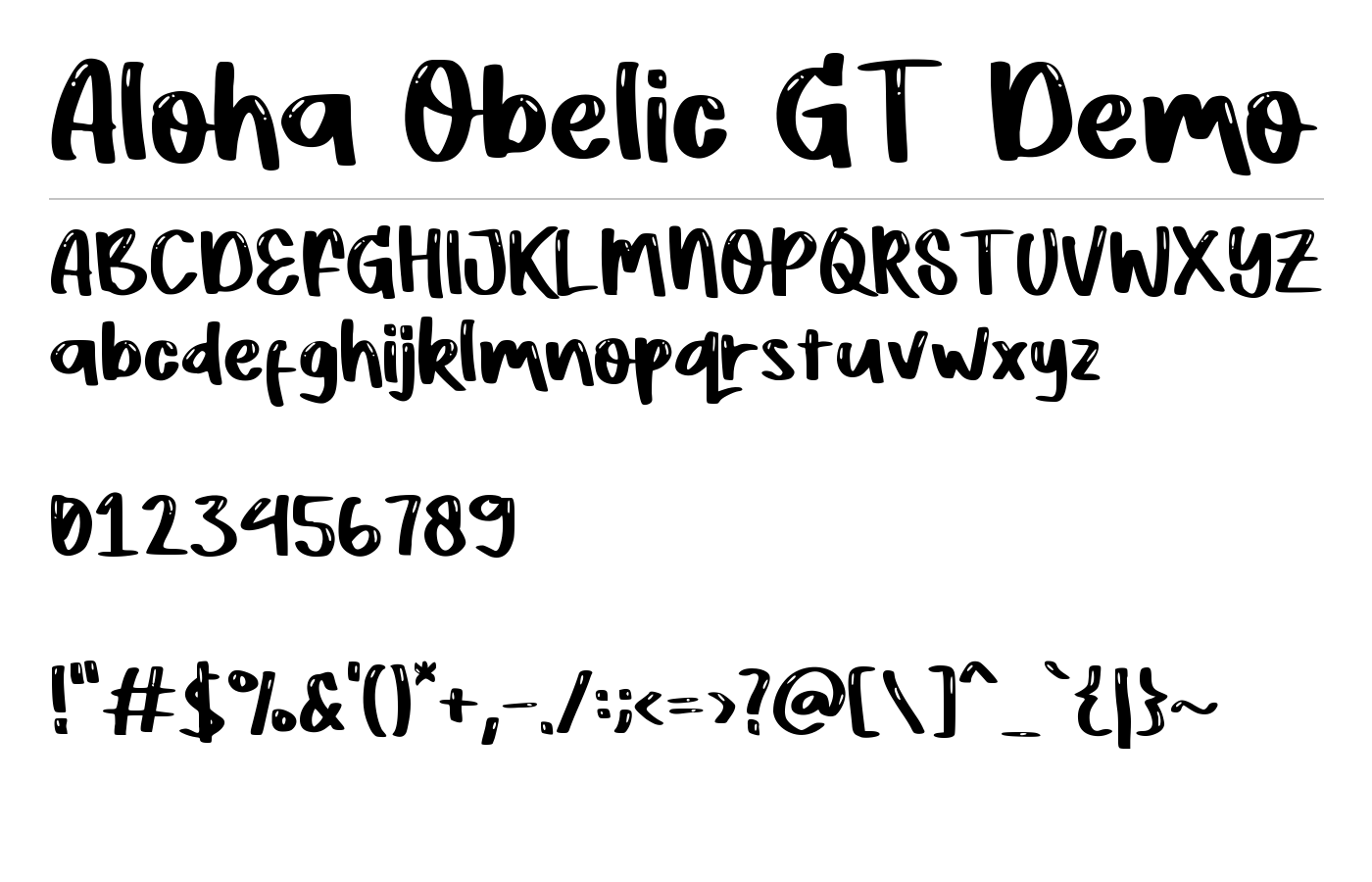
Aloha Obelic GT is a lively and playful handwritten sans serif font with a casual, friendly feel. Its bold weight and rounded, organic shapes give it a warm and approachable character, making it ideal for creative projects, informal branding, and fun headlines. This font works best in designs seeking an inviting, energetic vibe, such as children's books, party invitations, or lifestyle brands.
Aloha Obelic GT Font
About Aloha Obelic GT Font
| Font family | Aloha Obelic GT Font |
| Designer | Gumilang Anggara Ruslan |